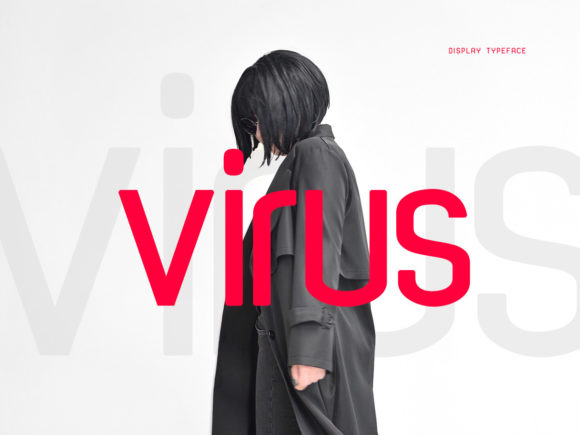
Get ready to make a statement with Virus Font, the display font that's turning heads in the design world. This modern marvel is a true chameleon, effortlessly adapting to a vast array of projects. Unleash your creativity and witness how Virus Font transforms your ideas into captivating masterpieces.
Step into a world of boundless possibilities, where Virus Font elevates your designs to new heights. Its clean lines and contemporary aesthetic bring a touch of sophistication to any project. Whether you're crafting eye-catching ads, sleek logos, or stunning social media graphics, Virus Font is your ultimate design partner.
Don't settle for ordinary when you can have extraordinary. Embrace the power of Virus Font and watch your designs come alive with vibrant energy. Its versatility knows no bounds, making it the perfect choice for both personal and professional projects. Let Virus Font ignite your imagination and take your creativity to dizzying new heights.
Dare to be different and let Virus Font be your secret weapon. Its sharp edges and dynamic curves demand attention, ensuring your designs leave a lasting impression. Join the design revolution and experience the transformative power of Virus Font today.